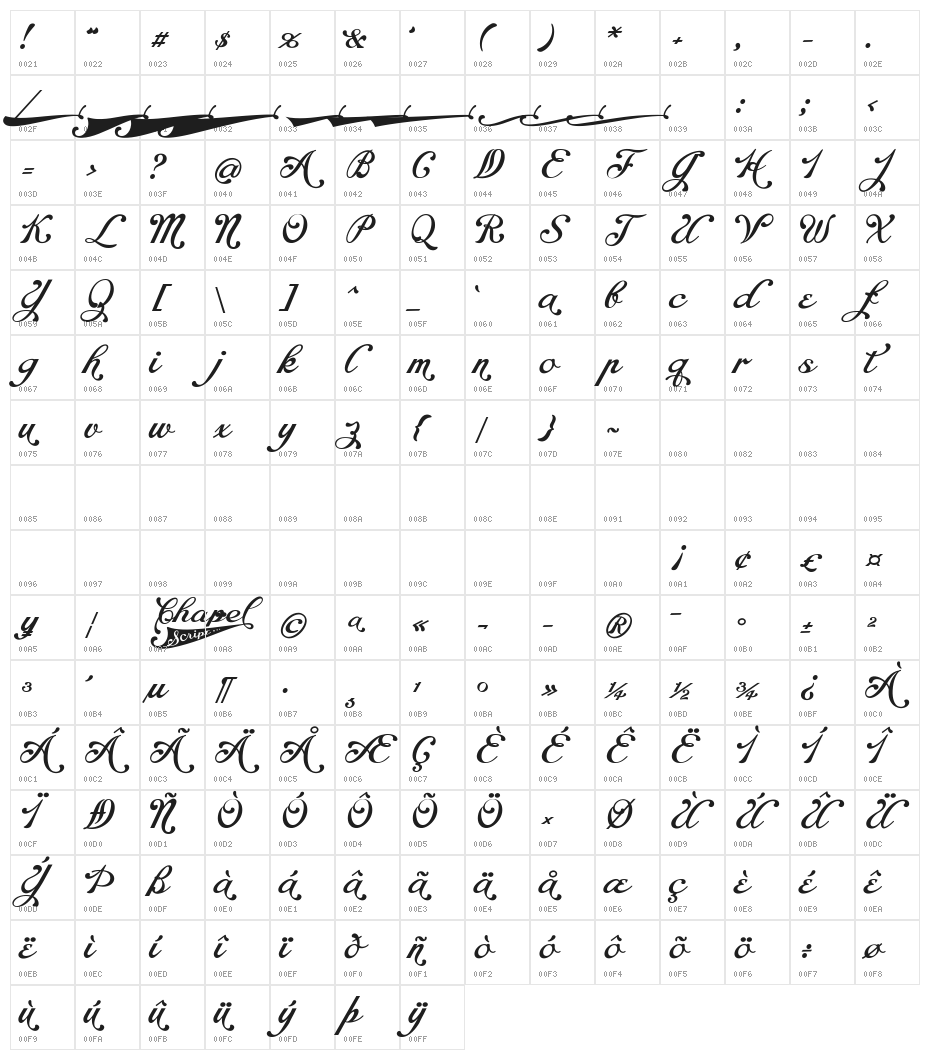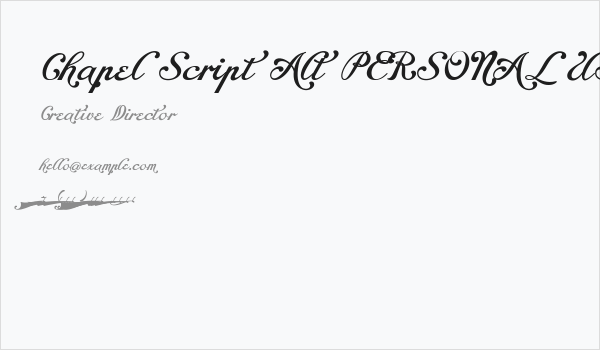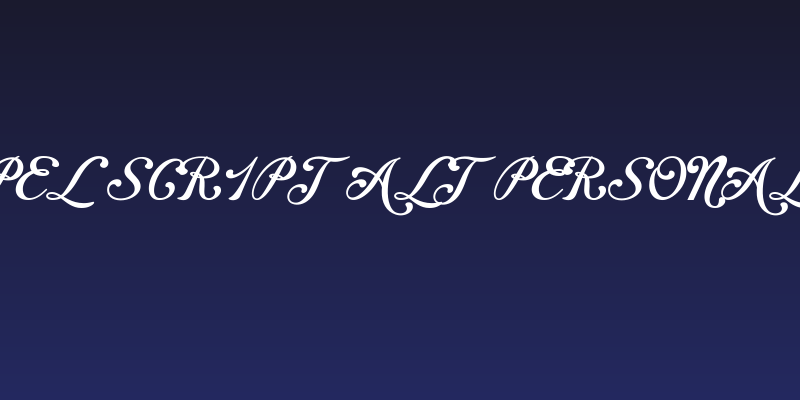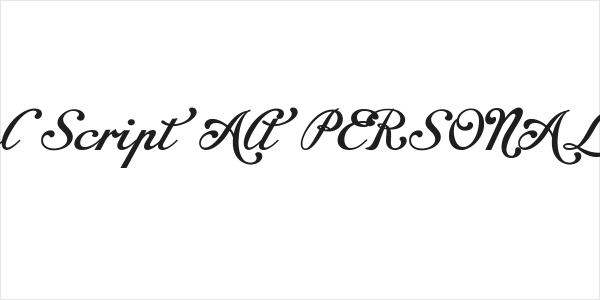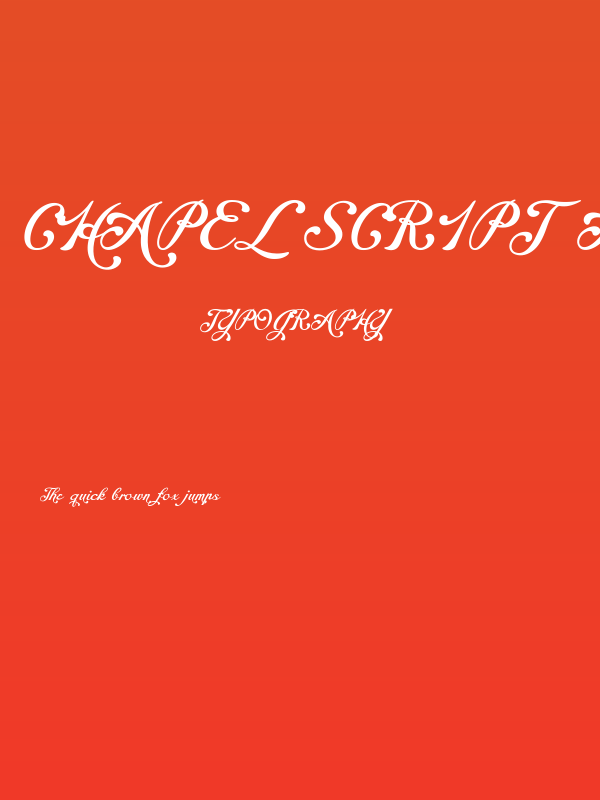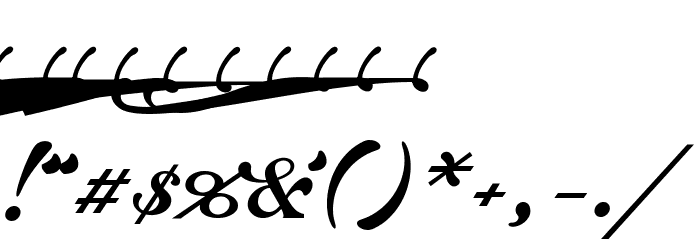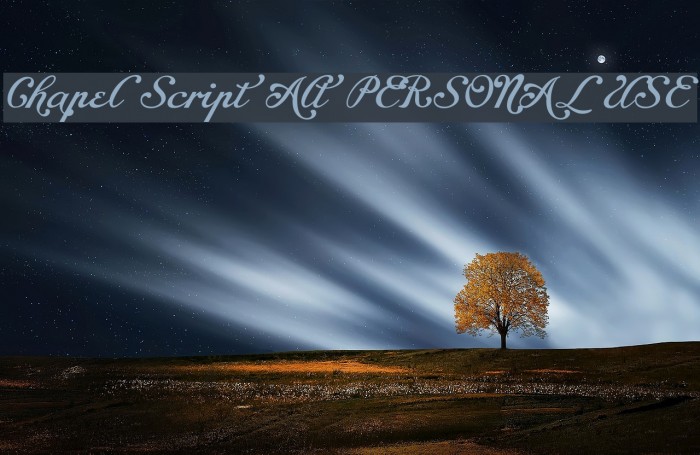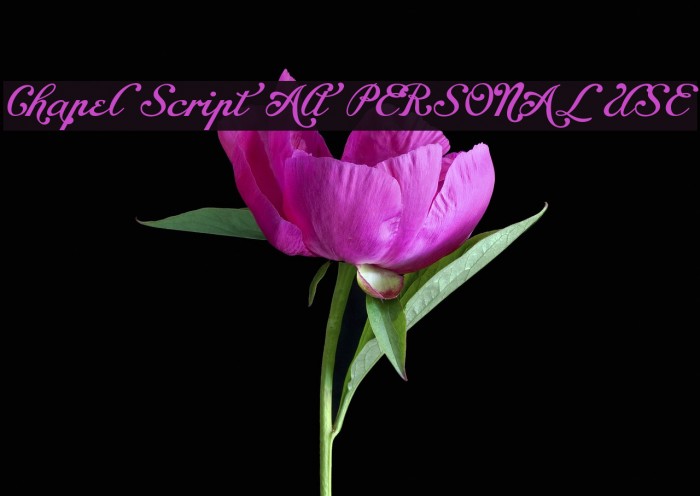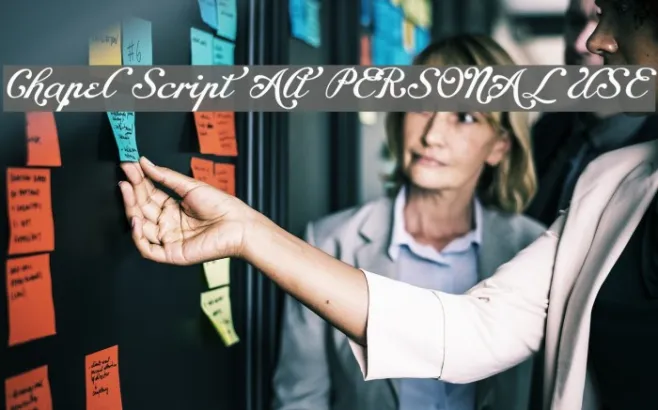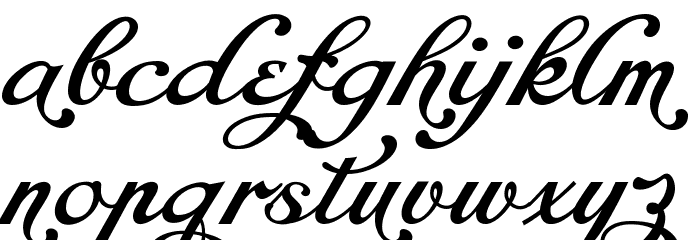
Chapel Script Alt PERSONAL USE Font
Chapel Script Alt PERSONAL USE Description
This font features an elegant and flowing script style, characterized by its ornate and decorative letterforms. The uppercase letters exhibit a graceful, sweeping motion with intricate loops and flourishes, while the lowercase letters maintain a consistent fluidity that complements the overall aesthetic. The font's design is reminiscent of traditional calligraphy, with a modern twist that adds a touch of sophistication. The characters are well-balanced, with a harmonious blend of thick and thin strokes that enhance readability while maintaining an artistic flair. The special characters and numerals are designed to match the script's ornate style, ensuring a cohesive look across all text elements.
| Proposed Projects | Ideal for wedding invitations, greeting cards, branding, and elegant packaging designs. |